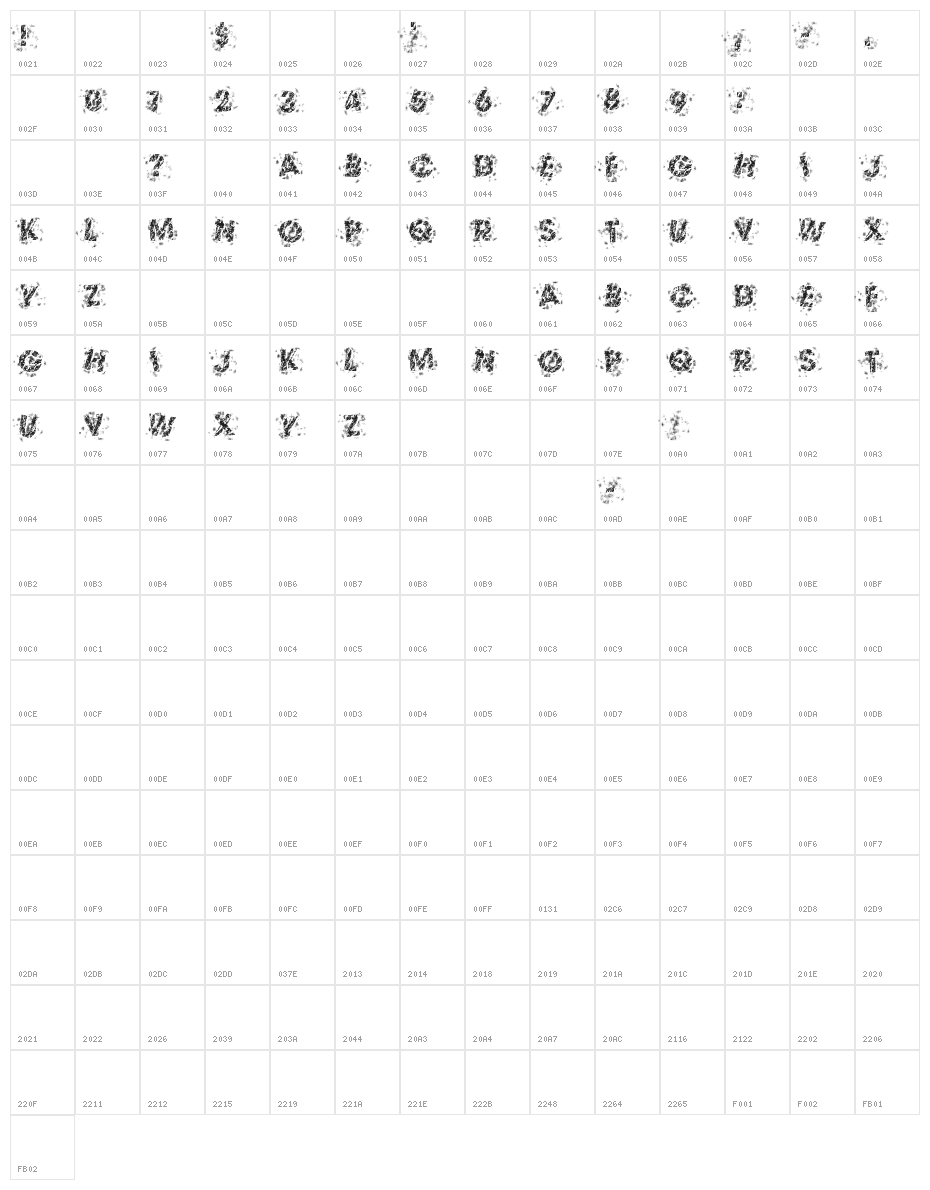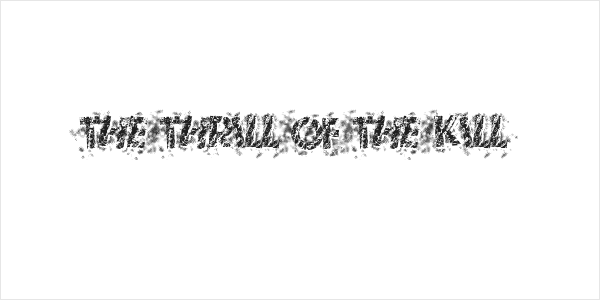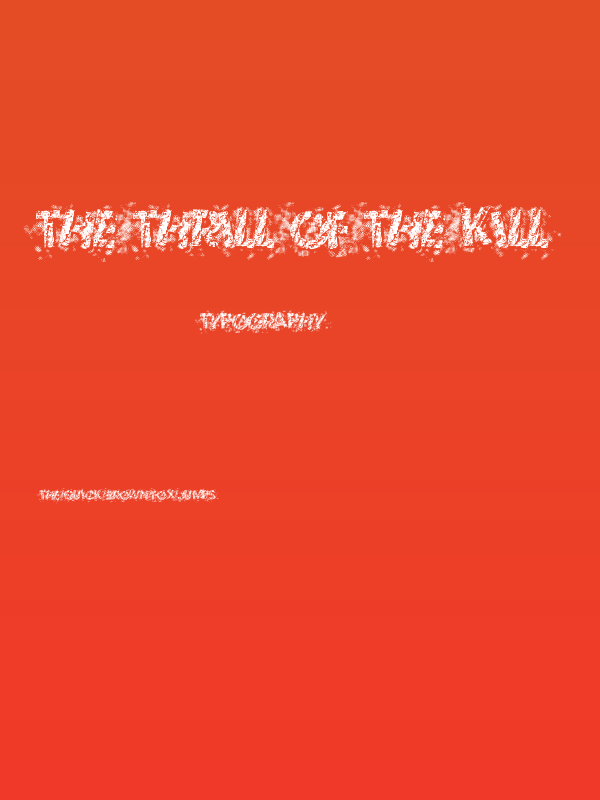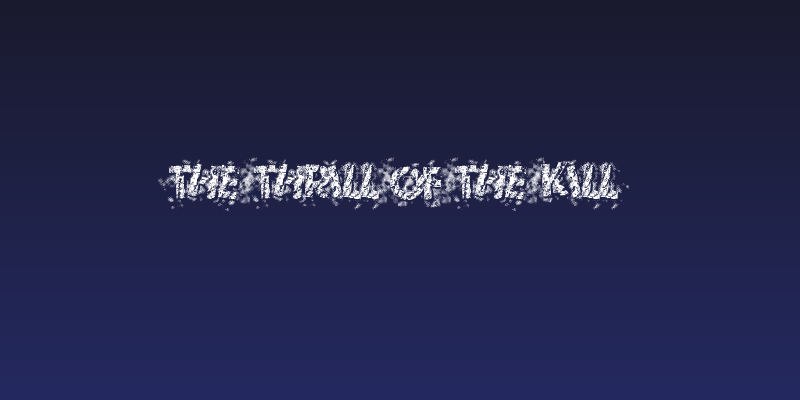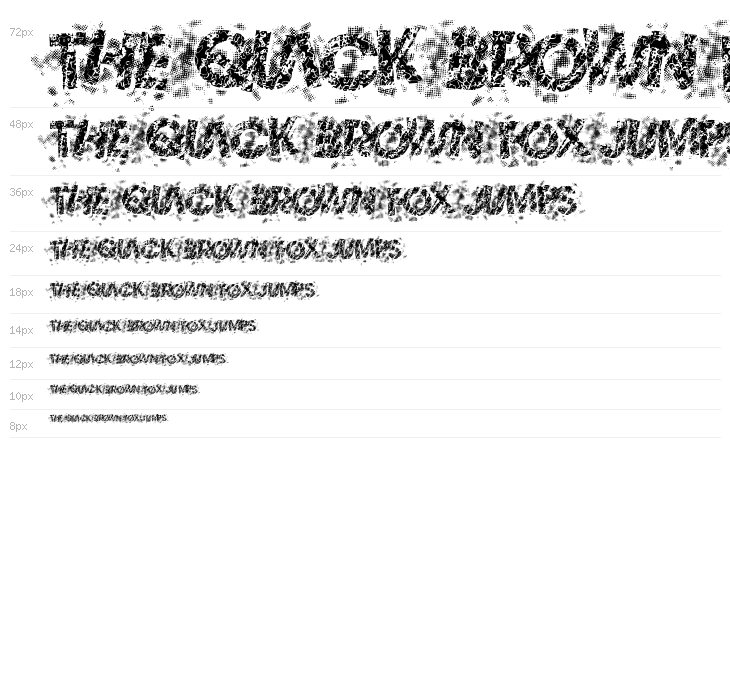
The Thrill Of The Kill Font
The Thrill Of The Kill Description
This font features a highly decorative and distressed style, characterized by a textured, grunge-like appearance. Each letter is filled with intricate patterns that create a sense of chaos and movement, making it stand out dramatically. The uppercase and lowercase letters maintain a consistent design, with bold strokes and a slightly italicized slant, adding to the dynamic feel. The numbers and special characters follow the same aesthetic, ensuring uniformity across all glyphs. This font is ideal for projects that require a bold statement or an edgy, artistic touch.
| Proposed Projects | Perfect for album covers, posters, streetwear branding, or any design needing an edgy, artistic flair. |